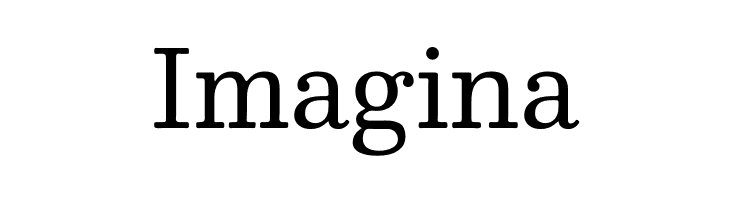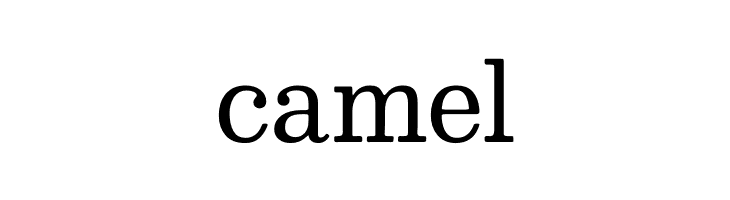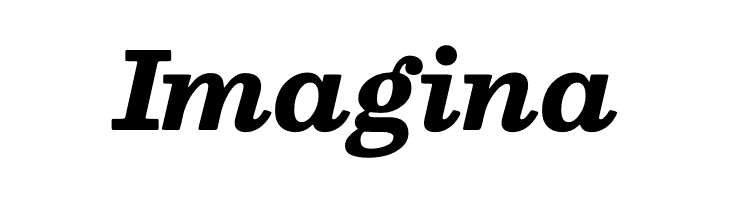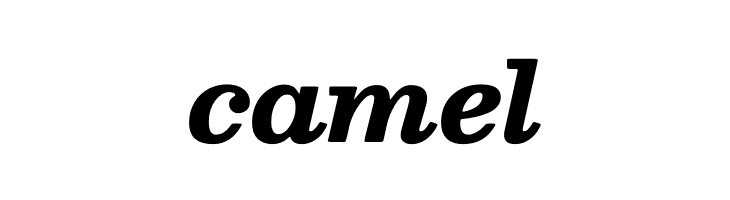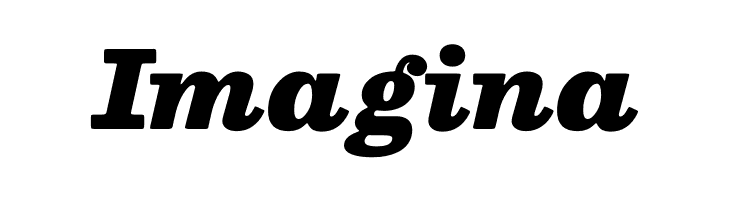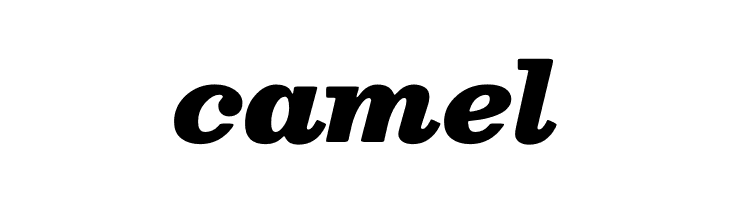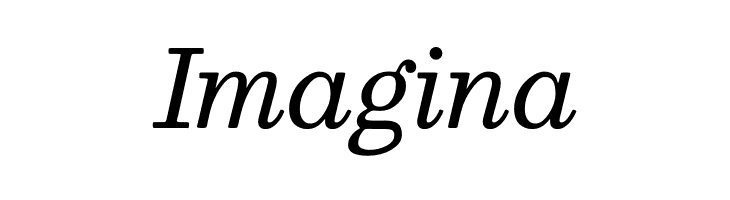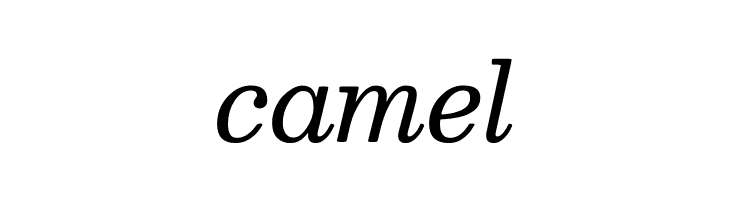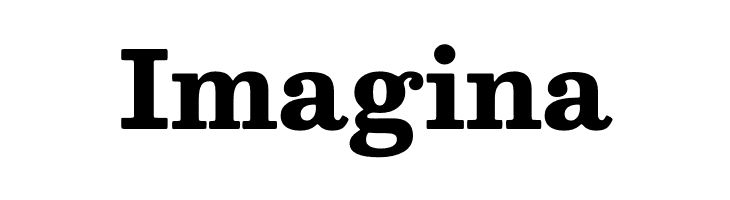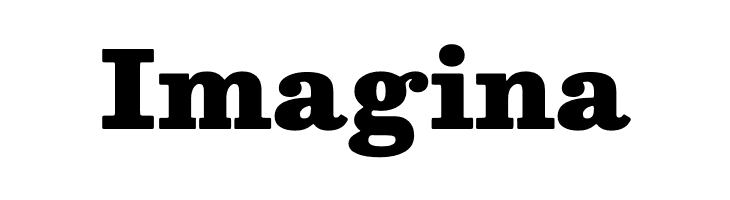
A bold slab serif font with strong, block-like serifs and consistent stroke weight.
Bold, italic serif font with a classic yet dynamic style.
A classic serif font with elegant and balanced design, ideal for traditional and sophisticated uses.
A classic serif font with an elegant italic slant and moderate contrast.
A bold, vintage serif font with thick strokes and pronounced serifs.
A bold, italic font with thick strokes and a vintage yet modern appeal.
A classic serif font with a balanced and elegant appearance.
An elegant serif font with a medium weight and italic style.
A bold, elegant serif font with high contrast and classic appeal.